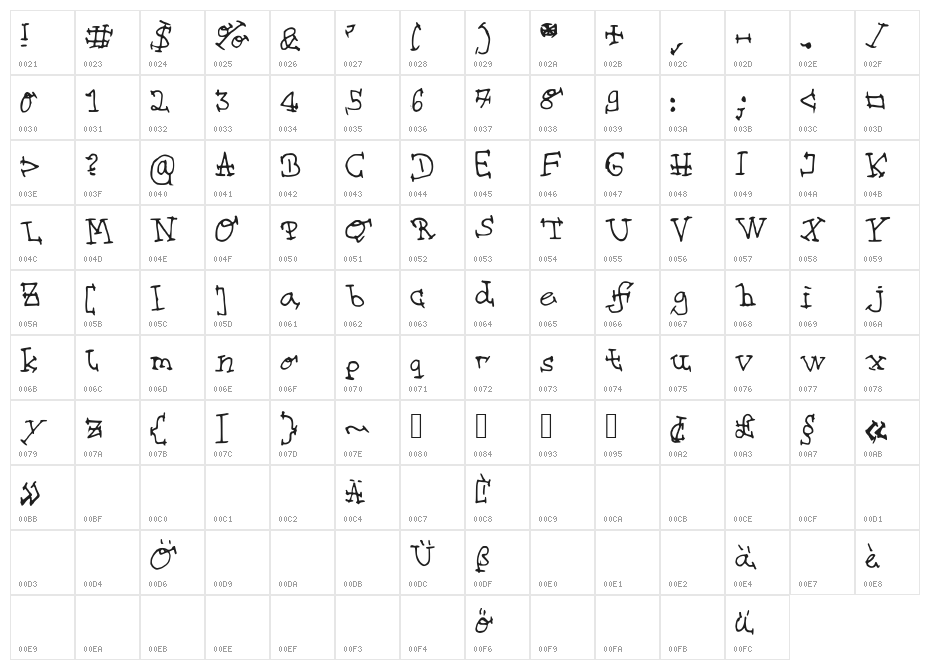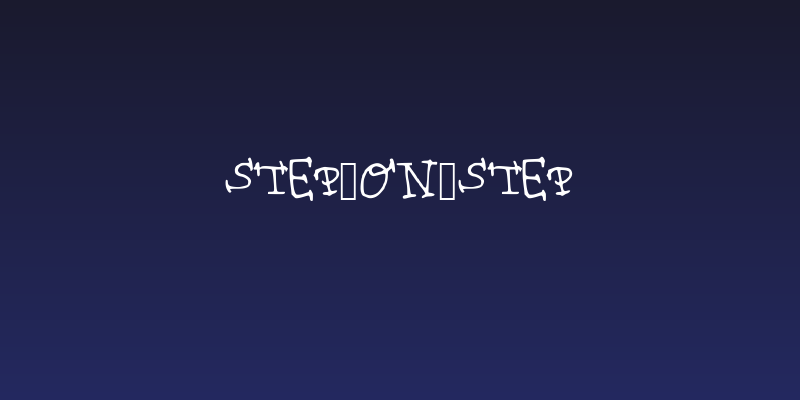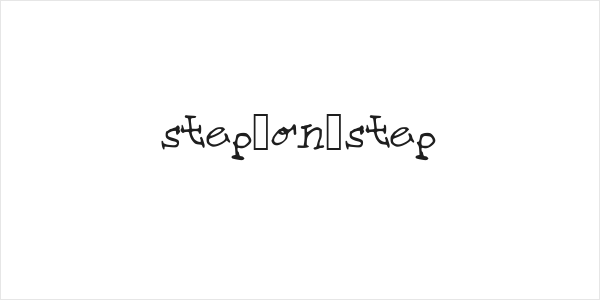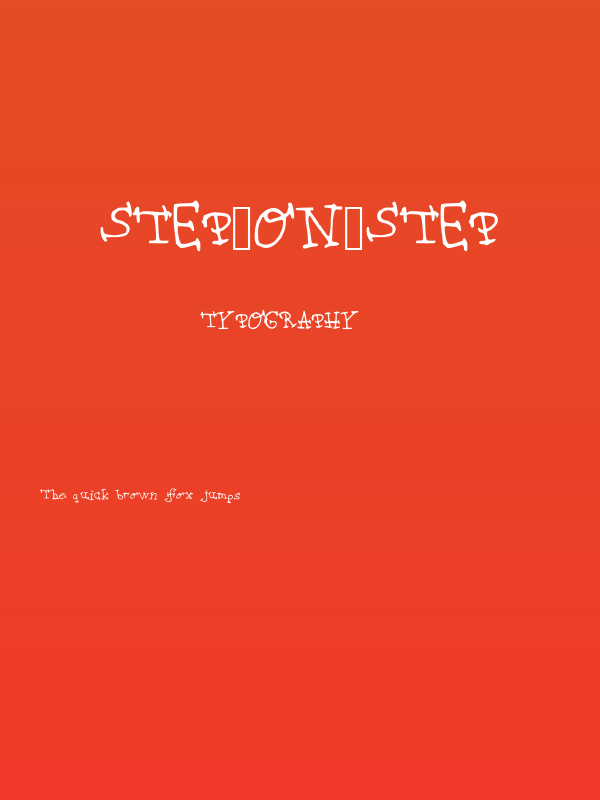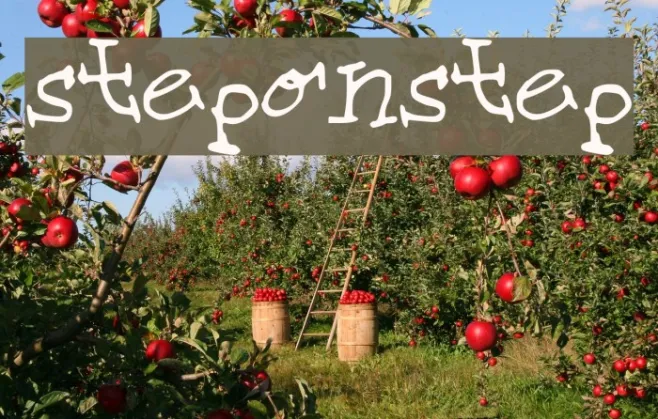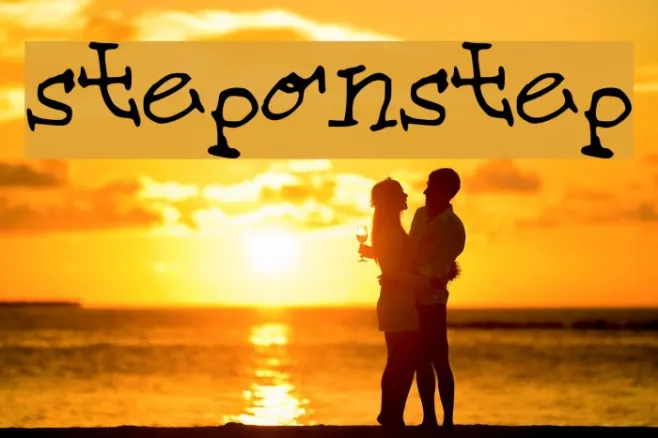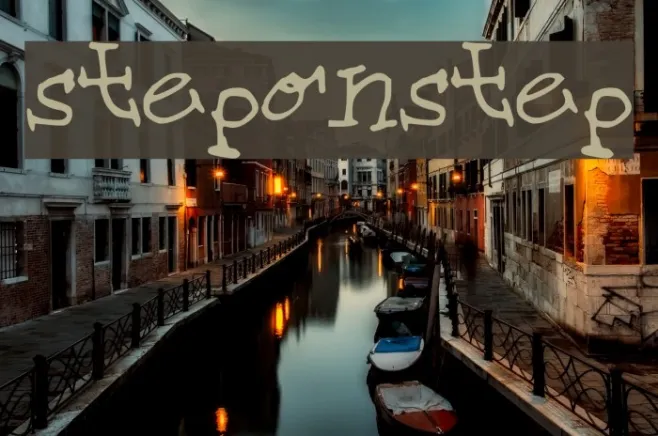
step_on_step Font
step_on_step Description
This font features a highly decorative and whimsical style, characterized by its irregular and playful letterforms. Each character appears to be hand-drawn with a unique flair, incorporating unexpected twists and turns that give it a lively and dynamic appearance. The strokes are uneven, with varying thicknesses that add to the font's quirky charm. The overall design is reminiscent of a playful doodle, making it stand out with its creative and artistic expression. The font maintains a consistent level of eccentricity across both uppercase and lowercase letters, as well as numbers and special characters, ensuring a cohesive yet unpredictable visual experience.
| Proposed Projects | Ideal for children's book covers, playful branding, creative posters, and artistic invitations. |